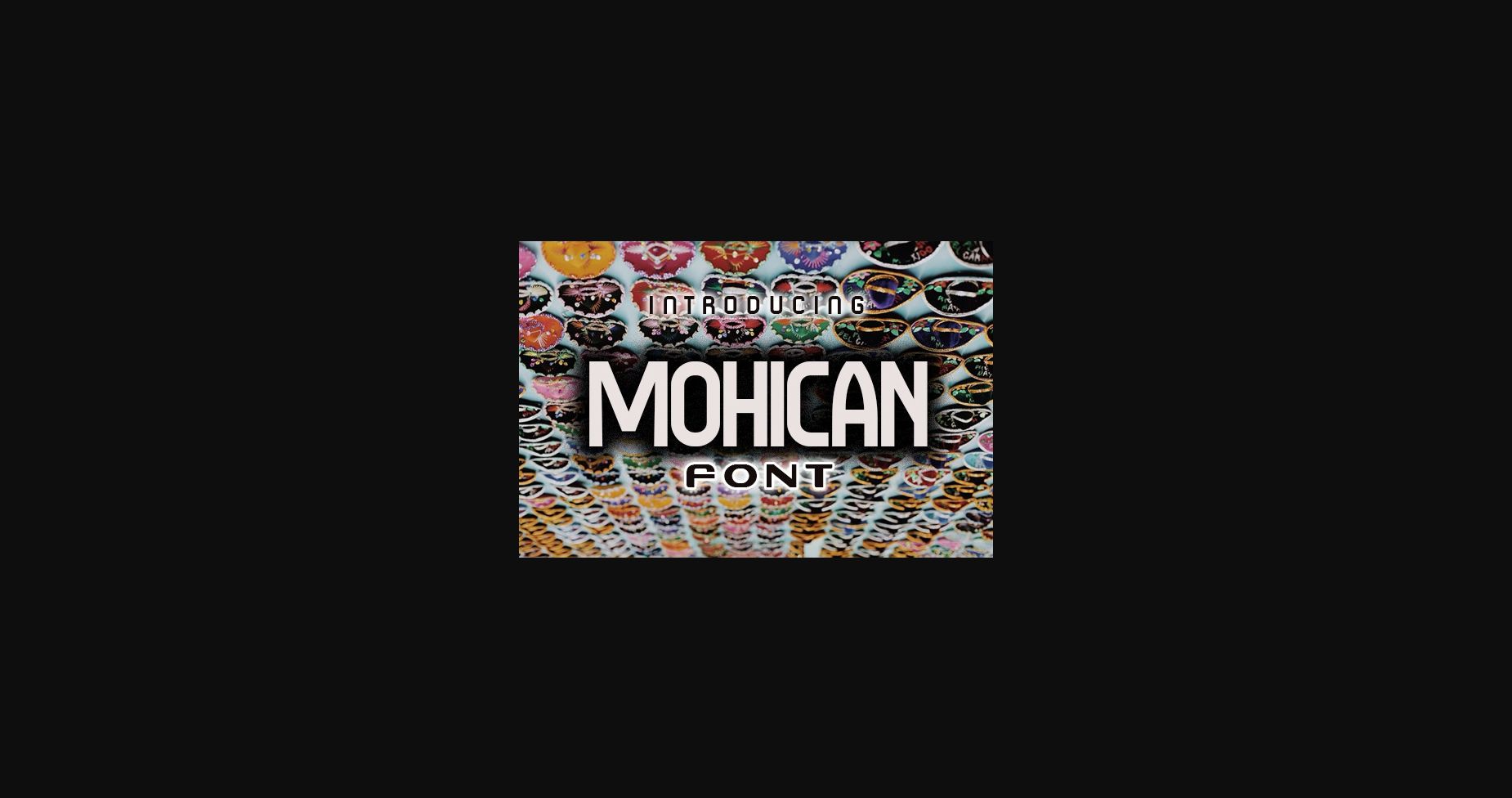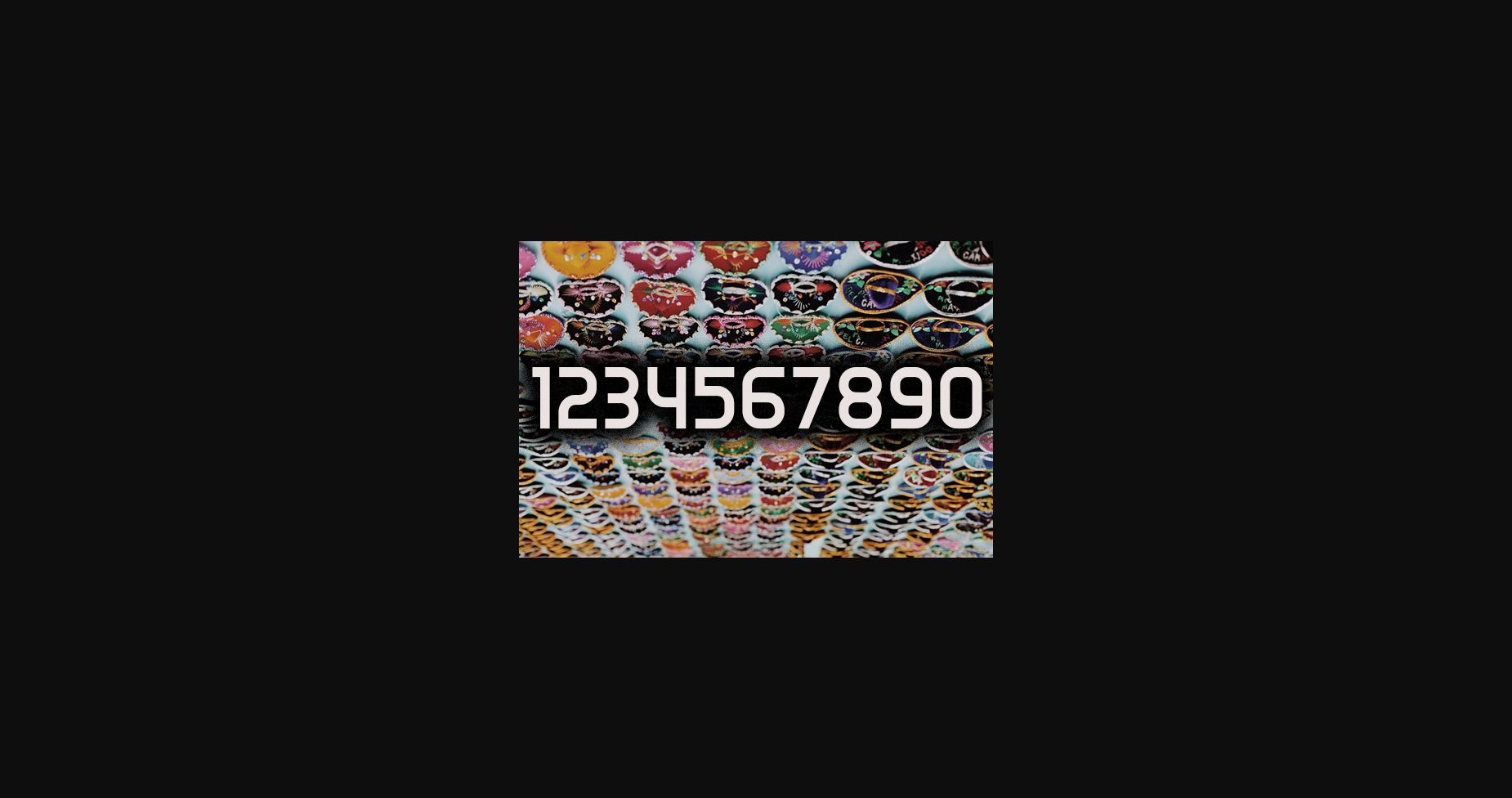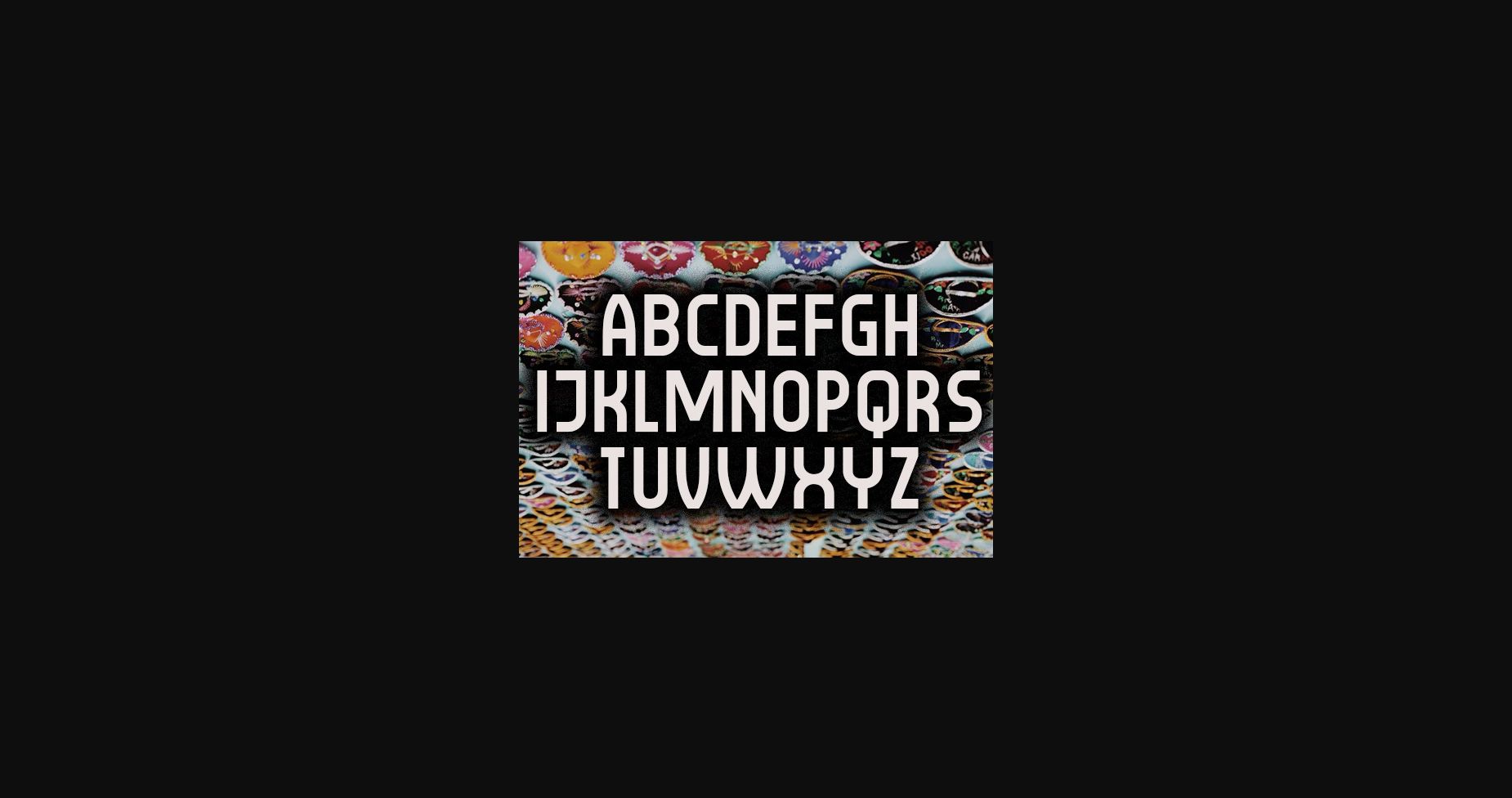
Mohican Font
About Mohican Font
Mohican is a sleek and modern sans serif font with a minimalistic design. Its clean and simple characters have a sophisticated and elegant appearance, with a balanced and well-proportioned layout that makes it suitable for various design projects. This font is perfect for creating professional and stylish branding, advertising, and web design. Mohican is a font that embodies simplicity and refinement.